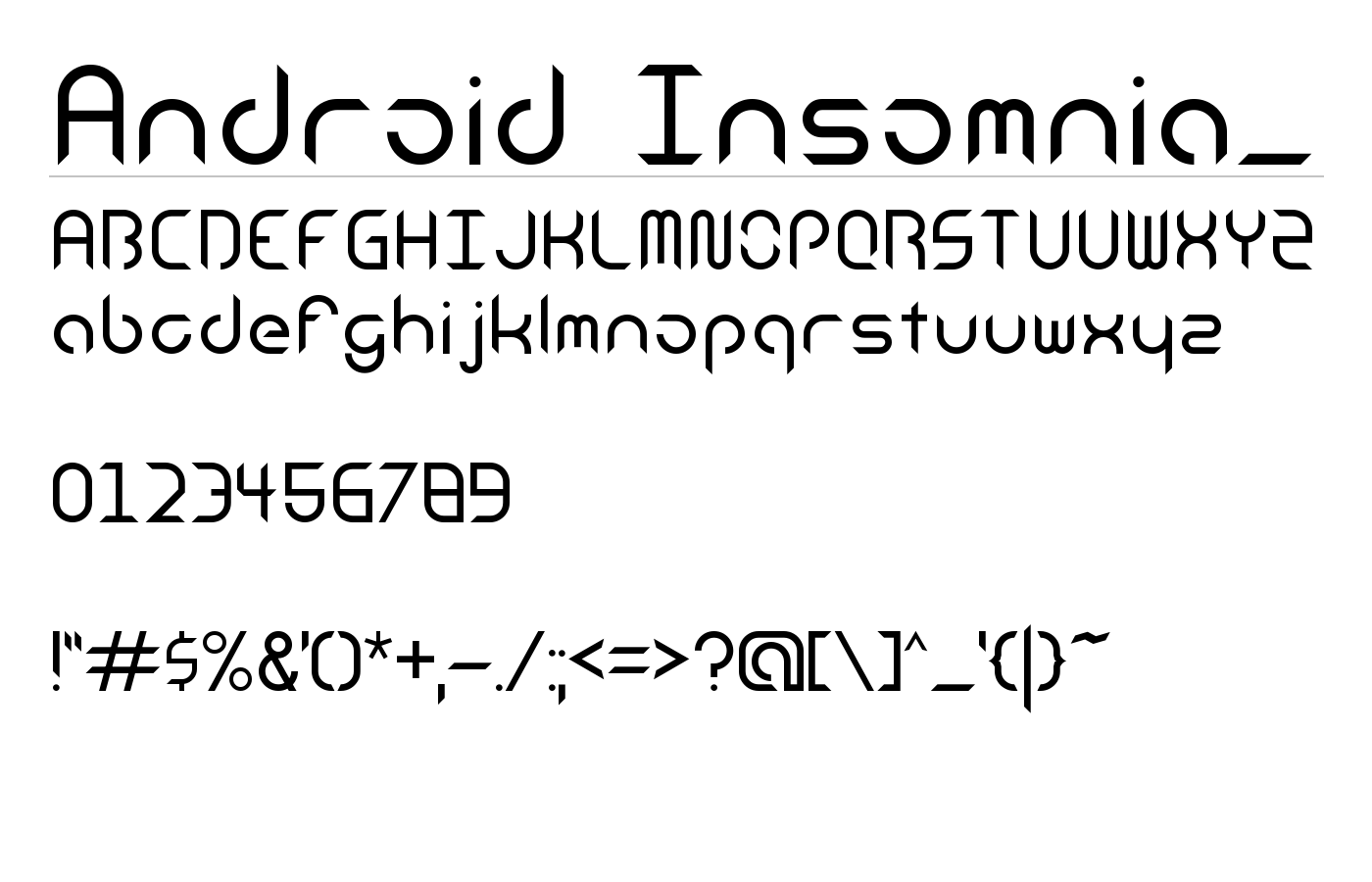
Android Insomnia is a futuristic sans serif font with a geometric, tech-inspired design featuring sharp angles and unique, stylized letterforms that give it a distinctive, digital vibe. Its clean yet edgy appearance works well for modern branding, technology-related projects, and creative headlines where a bold, innovative look is desired. This typeface stands out in logos, posters, and digital interfaces by balancing readability with a strong, contemporary personality.
Android Insomnia_ Font